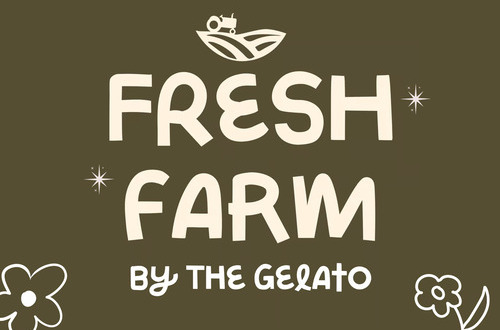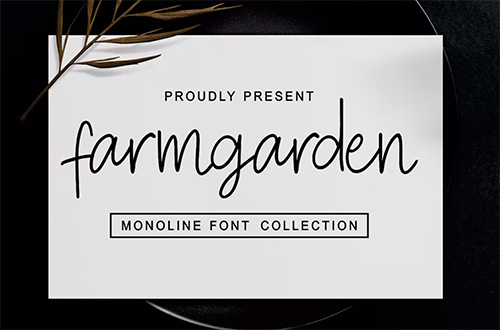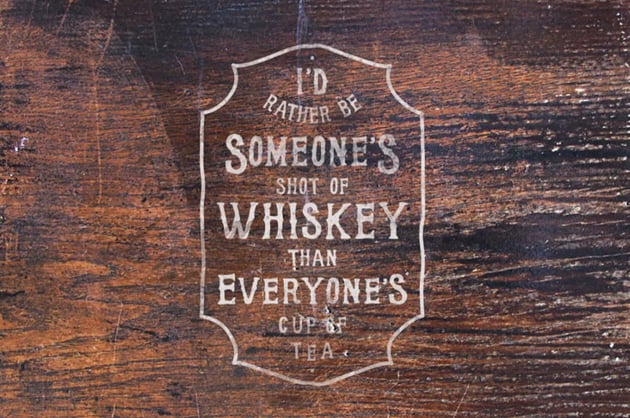
29 Best Farmhouse Fonts (Country & Farmhouse Style Fonts)
Love farmhouse fonts? Check out this inspiring collection of some of the best farm fonts and rustic country fonts you can download right now from Envato. Whether you're looking for a farmhouse lettering font or a farmhouse font alphabet with decorative serifs, there's plenty to see.
Best Farmhouse Fonts to Download Today
1. Farmhouse Font (OTF, TTF)
This farmhouse font has pretty serifs and a rustic, country feel. The farmhouse lettering would look lovely in projects that have a friendly, informal vibe.
2. On The Farm Font (OTF, TTF)
This is a very different take on the farmhouse look. If you're looking for something more graphical, try a display modern farmhouse font like this one.
3. Bonerica Typeface Farm Font (OTF, TTF)
Here's a rustic-looking font that plays into the country, farmhouse look really well. If you're looking for farm fonts, this could be a great choice.
4. Country Farmhouse Font (OTF, TTF)
This sweet country font takes on a cute look and feel. Imagine this on DIY labels, invitations, place settings, and more. It's a fun country style font choice.
5. Huvet Farming Font (OTF, TTF, WOFF)
Here's a blocky farming font that would really make an impact. It has a worn, rustic vibe that could work really well for farmhouse-themed projects. It's perfect for farmhouse lettering signs.
6. Western Wildler Slab Vintage (OTF, TTF, WOFF)
A western-inspired aesthetic can also have some crossover with the farmhouse look. Check out this unique country style font. It could be a great choice.
7. Rustic Farmhouse Aesthetic Font Duo (OTF, TTF, WOFF)
Hand-drawn fonts are another direction that can work well when creating a farmhouse aesthetic. These farmhouse letters capture the look; you get two fonts with this download.
8. Western Rome Vintage Font (OTF, TTF, WOFF)
Are you a fan of country fonts? Check out this decorative serif font. Its vintage look and feel give it a country-inspired aesthetic. Try it in different colors or with some added texture.
9. The Circous Font (OTF, TTF, WOFF)
Remember, the aesthetic here tends to be rustic and earthy. Vintage farm fonts can work well for this look too, as we see in this decorative font.
10. The Farmer Font Condensed Typeface (OTF, TTF, WOFF)
Farmhouse sign fonts are often blocky, because they're so bold and great for signage. This modern farmhouse font comes with three different variations you can try.
11. Kanaboy Country Font (OTF, TTF, WOFF)
If you like country style fonts with an ornate look, try this farmhouse font alphabet. The farmhouse letters pair so well with a wood texture, but try it with a variety of different patterns, textures, and colors.
12. Farmyard Font (OTF, TTF)
This playful farming font is handwritten and has plenty of personality. Imagine this one on DIY labels, invitations, and stationery. It's got such a charming look.
13. Farmhouse Calligraphy Font (OTF, TTF, WOFF)
If you're looking for a farmhouse cursive font, why not try a font like this one? A calligraphy-inspired farmhouse lettering look can pair really well with this aesthetic.
14. MOOR VANTAGE Classical Vintage Font (OTF, TTF)
Why not try an ornate serif font in your next design project? Again, this vintage-inspired farmhouse lettering keys in well with the rustic farmhouse look.
15. Friends of the Farmer Font Duo (OTF, TTF)
Here's a different take on a farmhouse font. These farmer fonts are sweet, friendly, and super cute. They could work well for a child's project, T-shirts, and more.
16. Dehors Display Typeface (OTF, TTF)
Need more country fonts? This display font has such creative serifs. It's really eye-catching and would be sure to command attention on T-shirts, posters, and more.
17. Farmers Market Font (OTF, TTF)
Isn't this a cute font? Imagine this one as a Cricut font or used in a scrapbooking project. The Farmers Market font has such fun, jumpy letters that would definitely make an impression.
18. Broky Typeface Rough Version (OTF)
Prefer something bold and chunky? Check out the texture in this rough country font. It definitely has that rustic look and feel that makes the farmhouse look.
19. Hello Farmer Font (OTF, TTF, WOFF)
If you prefer the friendly look of a handwriting font, you might prefer this farming font. It's casual, personal, and could work well with some added texture.
20. Calvous Slab Serif Typeface (OTF, TTF)
Aren't the country style fonts here lovely? This farmhouse font alphabet could work great on DIY signage, as it really stands out.